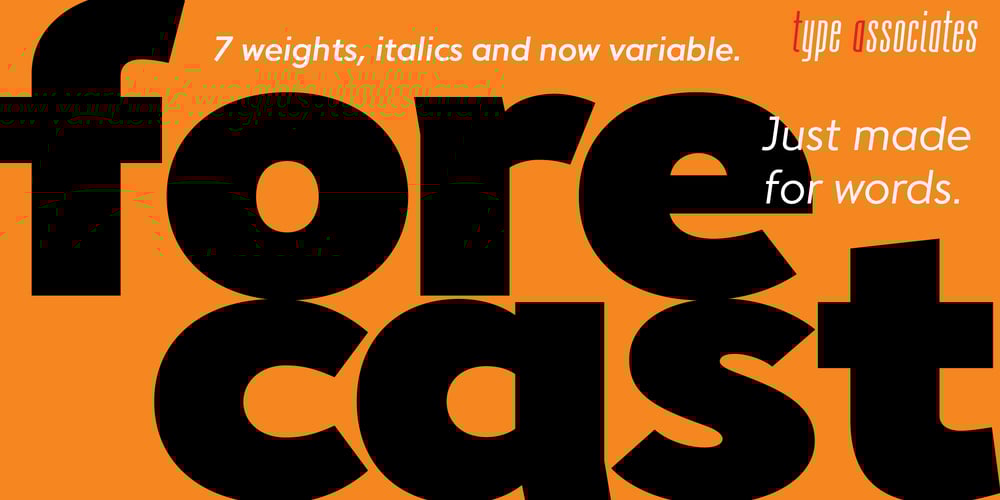
Forecast
Forecast font
Forecast Font Family was designed by Russell Bean and published by Type Associates. Forecast contains 14 styles and family package options. Designed by Russell Bean between December 2020 and August 2023 as a pandemic project, Forecast takes cues from past geometrics notably Futura, Tempo even Avant Garde. ideal for a multitude of uses – text, display, web, wayfinding. The objective of Forecast is to present a practical, swiss-army, use-everywhere design where readability is paramount. Available in 7 weights with italics a total of 14 styles all kerned to perfection. LatPro encoded, supporting more than 90 languages.Most recently added Variable and Variable Italics. Each Variable font encompasses the seven weights in the static families plus additional condensed and extended proportions.